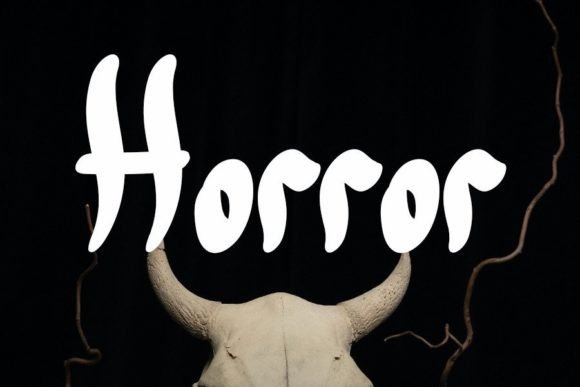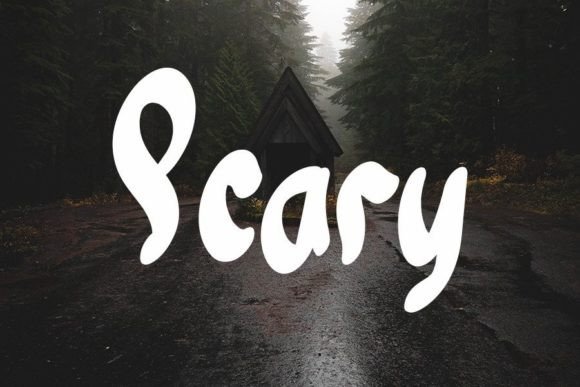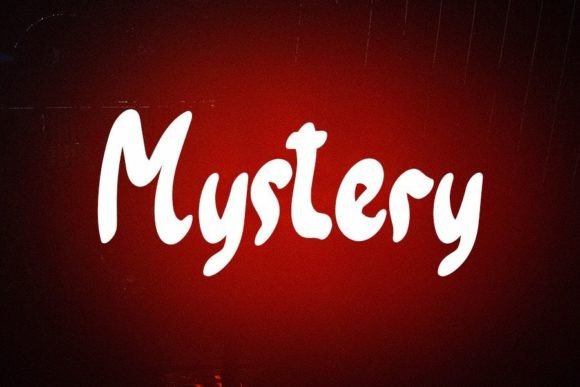
“Handmade” is a bold and beautiful handwritten font that stands out with its original touch, making it an ideal choice for a variety of creative projects. With its distinct and natural style, Handmade is crafted to bring an authentic and captivating vibe to your favorite designs.
The boldness of Handmade imparts a strong and confident aesthetic to your text, ensuring that it grabs attention and leaves a lasting impression. The beautiful handwritten elements add an original touch, creating a perfect balance between boldness and natural charm in the font’s design.
Whether you’re working on branding, headlines, or any creative project, Handmade is versatile enough to adapt to various design needs. Its distinct and natural style ensures that it remains visually appealing and authentic across different contexts.
In summary, Handmade is more than just a font; it’s a design tool that brings boldness and originality together in a harmonious blend. Let Handmade be the choice that adds a touch of natural charm and authenticity to your favorite projects, allowing you to create designs that are both bold and uniquely captivating.